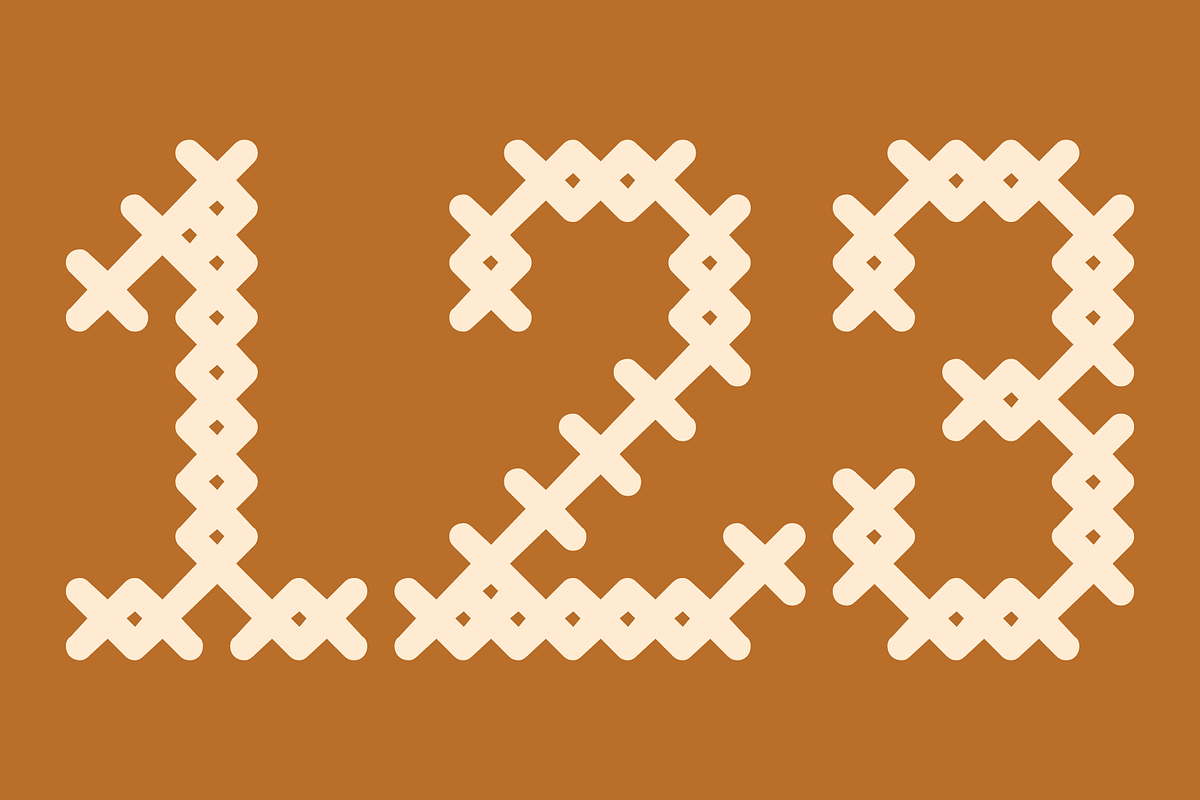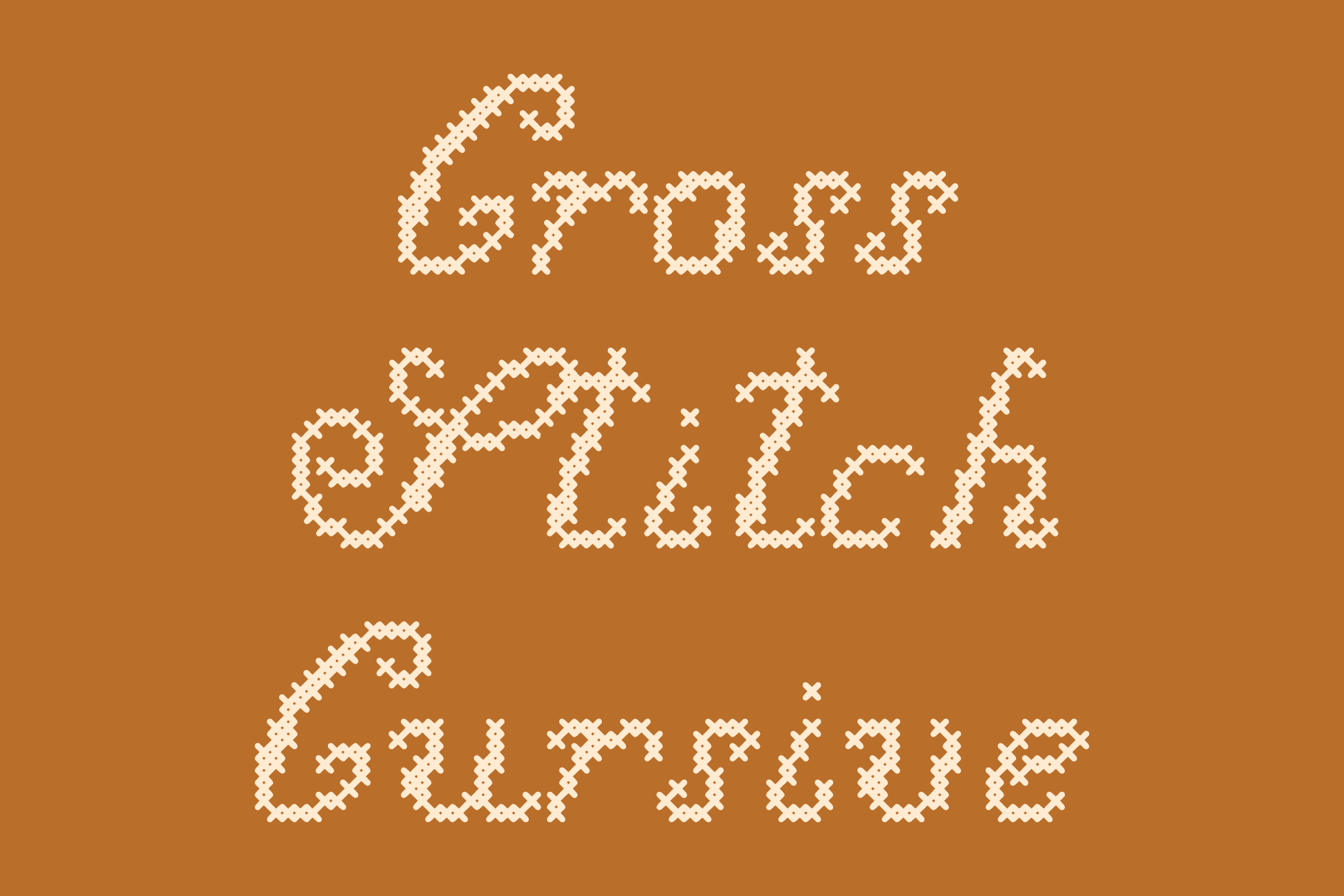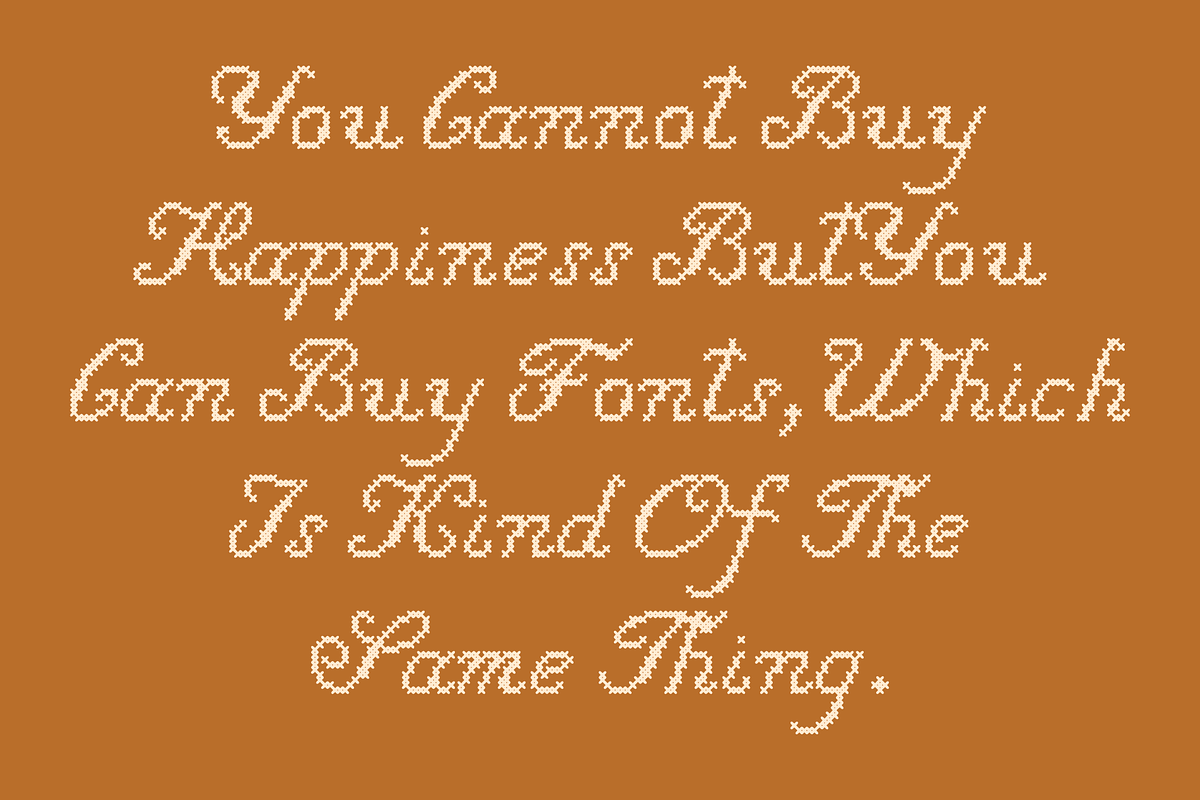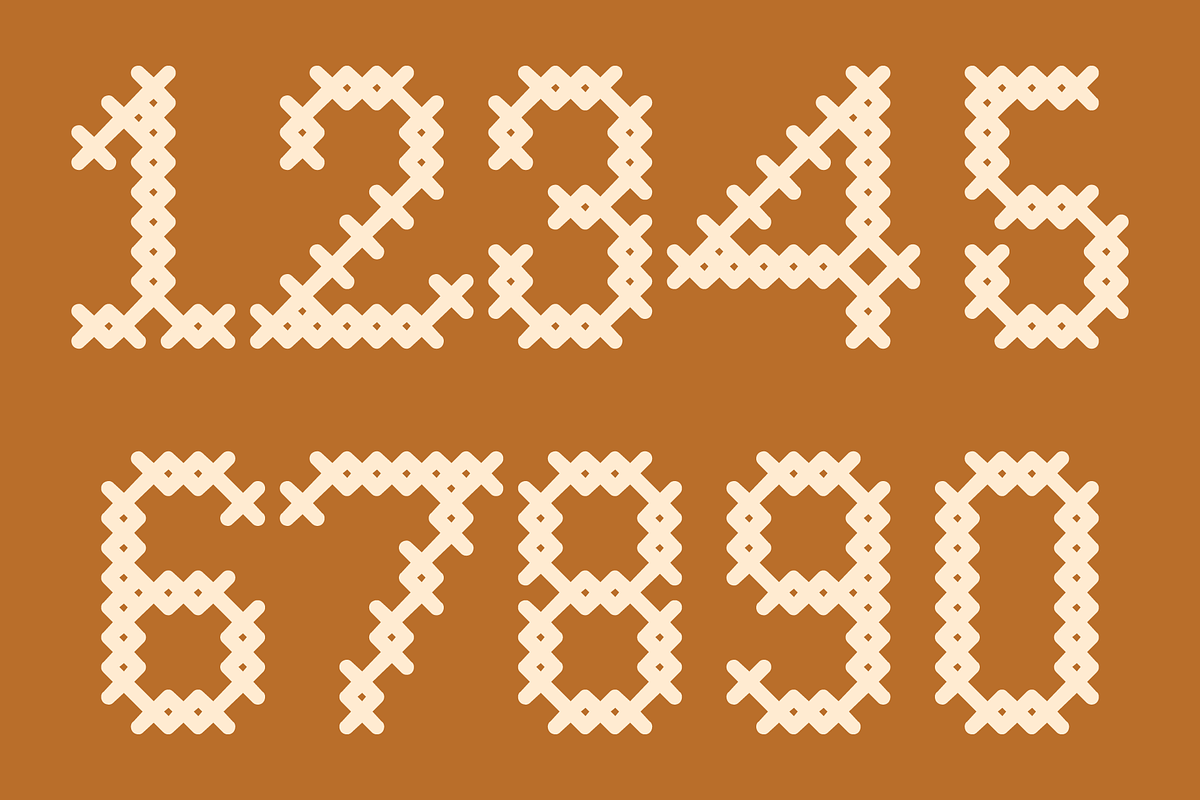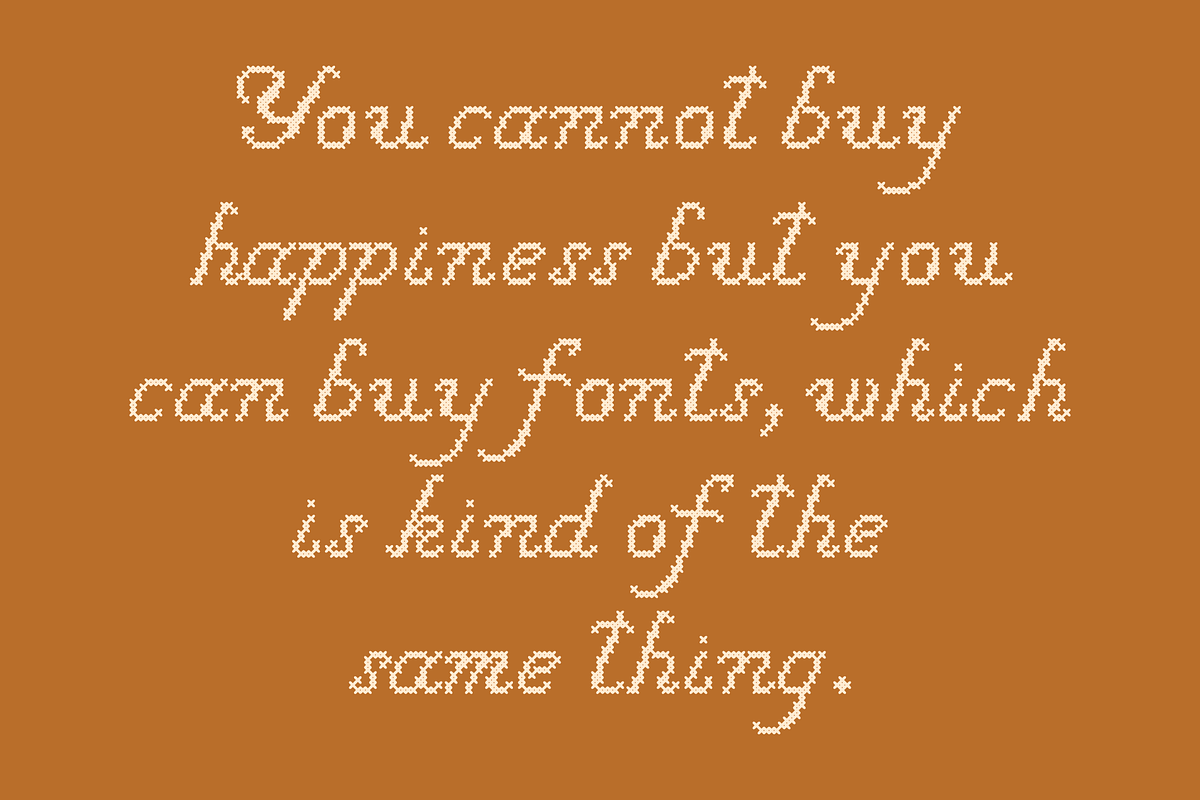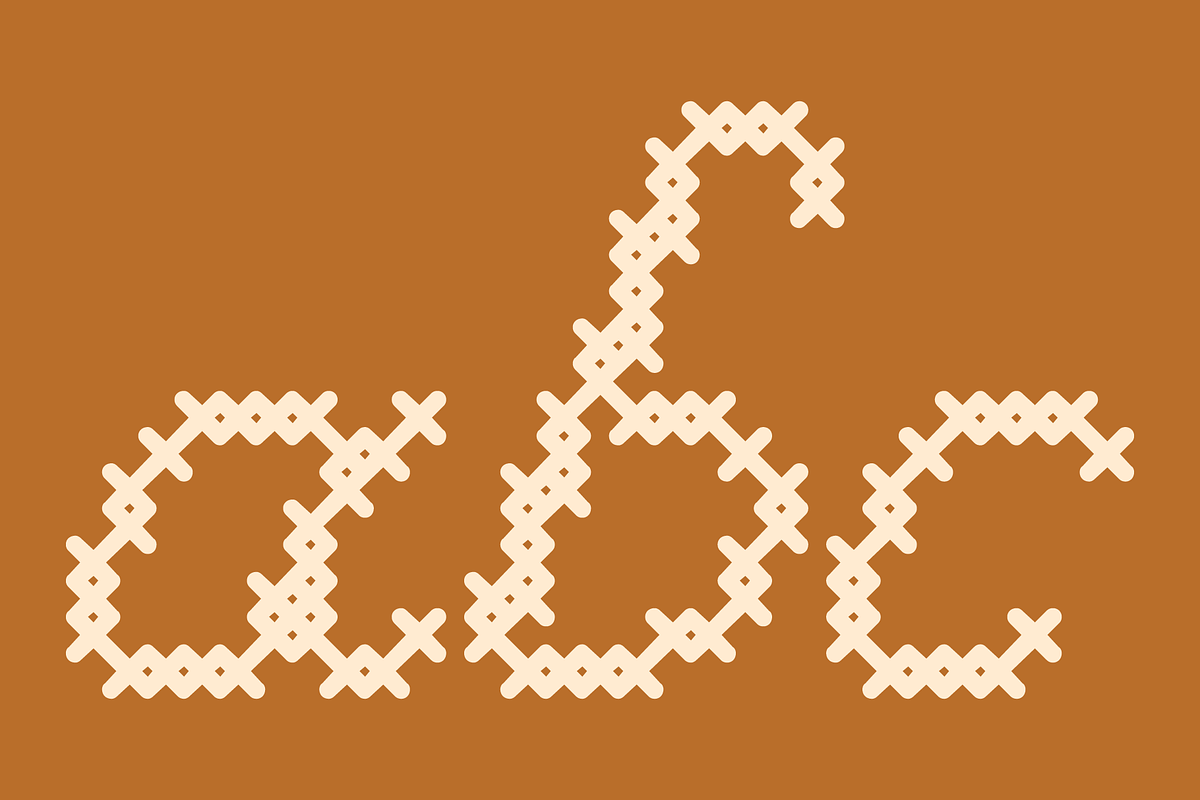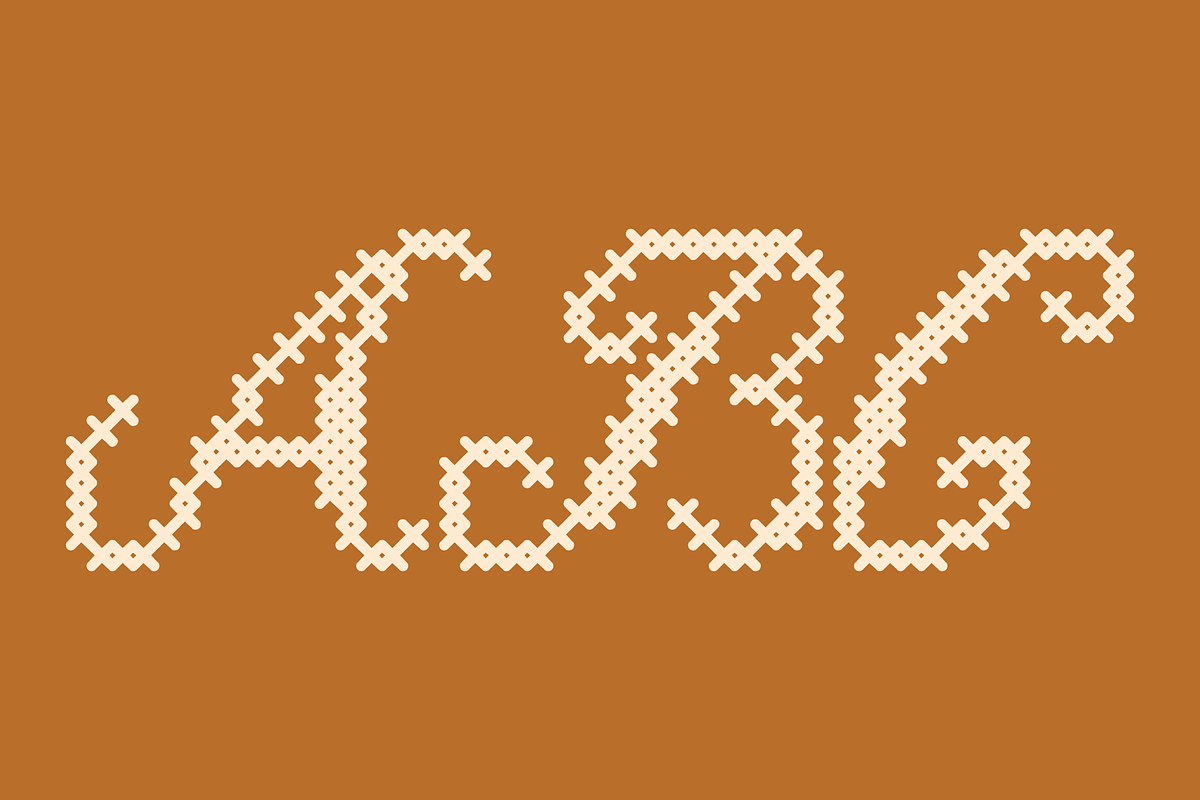
Cross Stitch Cursive Font
The Cross Stitch Cursive font is for creating designs with letters that appear to be cross stitched for posters, art prints, signage or anything that cross stitched lettering would enhance. It is based on upper case characters 16 stitches tall and contains the upper case characters A-Z, lower case characters a-z, small numbers 0-9, ampersand, exclamation and question marks, comma, and period.